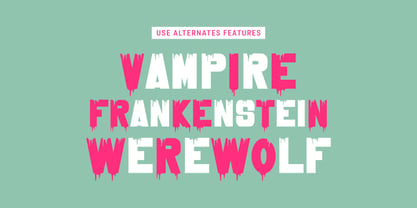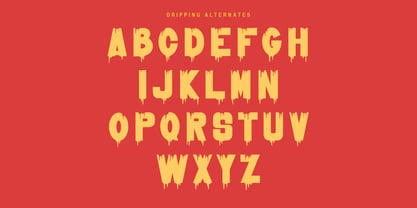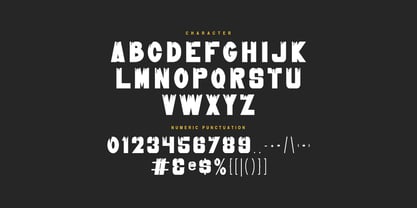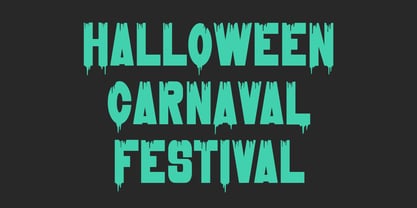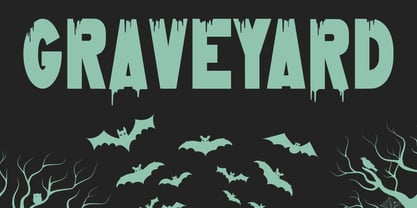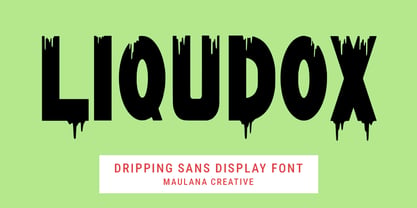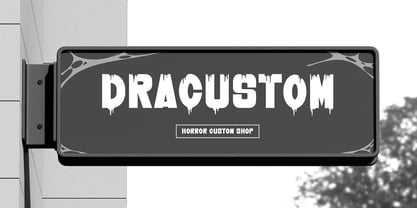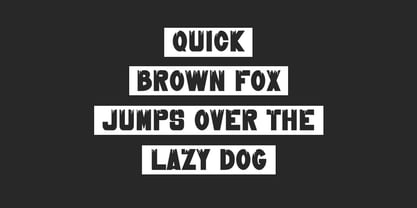
MC Liqudox
by Maulana Creative
The MC Liqudox Font Family was designed by Gilang Maulana and published by Maulana Creative. MC Liqudox contains 1 styles. More about this family
Unleash the eerie and playful vibes with Liqudox, the ultimate Dripping Sans Display Font. Liqudox is a bold, modern, all-caps sans-serif typeface distinguished by its unique, gooey, dripping effect at the bottom of each letter. This font is perfect for projects that require a sense of fun horror, grunge, or spooky style. Bold, blocky letterforms that ensure high impact and readability even with the dripping effect. Dripping Alternates that allow you to customize the look of each word, adding flexibility and extra visual interest.
Designers: Gilang Maulana
Foundry: Maulana Creative